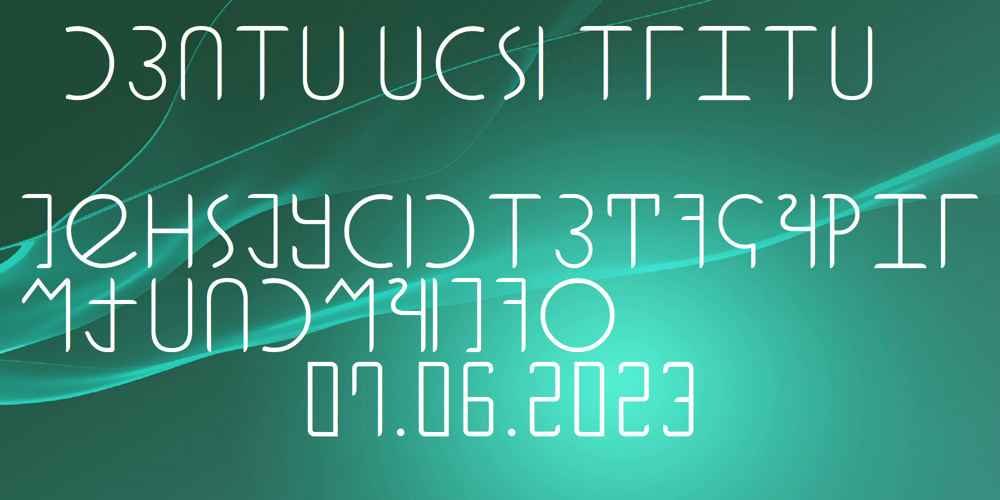
Ongunkan Borama Somali Script
Ongunkan Borama Somali Script Font Family was designed by Osman Nuri ALKAN and published by Runic World Tamgacı. Ongunkan Borama Somali Script contains 1 styles and family package options. The Gadabuursi alphabet, also known as the Borama alphabet Borama is an alphabetic script for the Somali language. It was devised around 1933 by Sheikh Abdurahman Sheikh Nuur of the Gadabuursi clan.Though not as widely known as Osmanya, the other major orthography for transcribing Somali, Borama has produced a notable body of literature mainly consisting of qasidas.